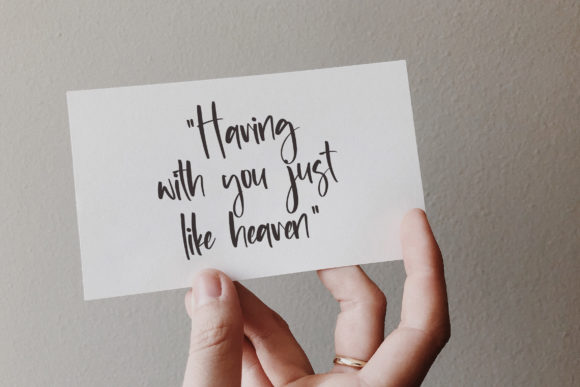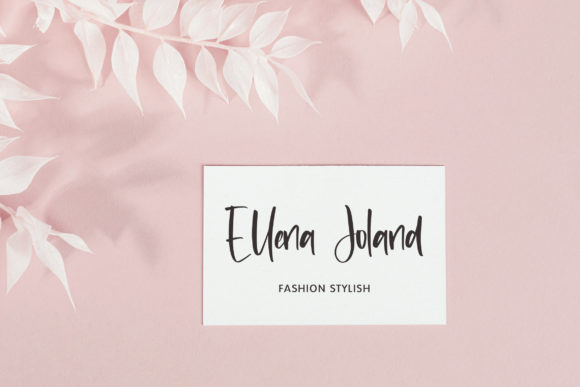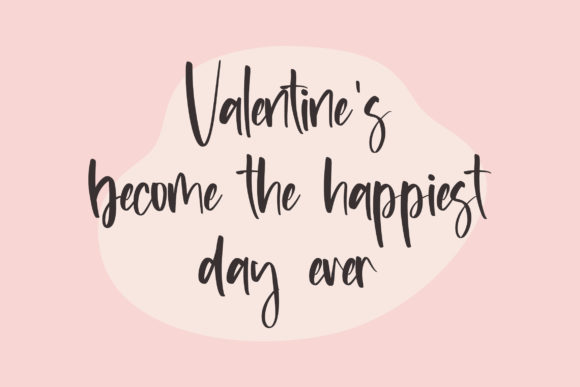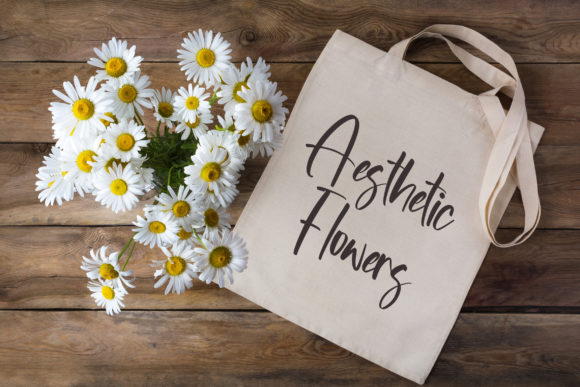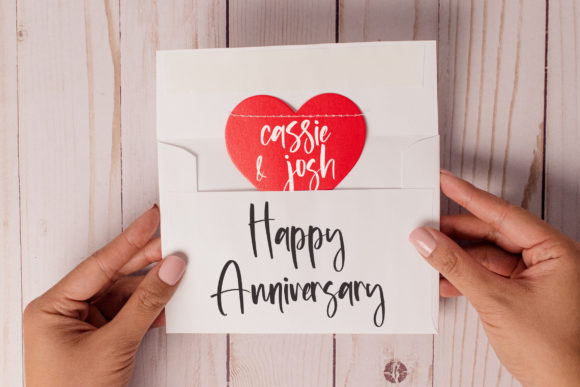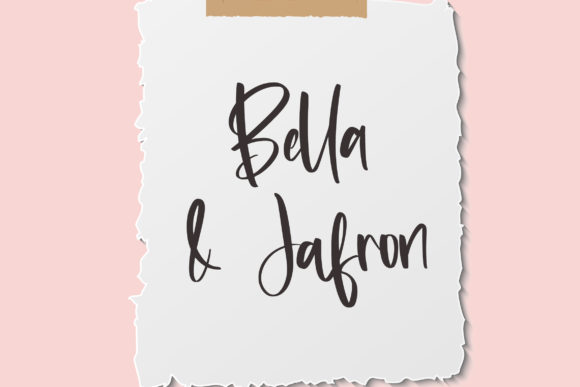
Unleashing Your Creativity with the Bedroom Diaries Font
Have you ever sat in front of your computer, staring at a blank screen, waiting for inspiration to strike? You’re not alone. As creatives, we’ve all been there. But what if I told you that there’s a secret to unlocking your design potential? For me, it starts with the right font. And when I stumbled upon the Bedroom Diaries Font, I knew I’d found my new go-to.
This gorgeous and relaxed script font is more than just a pretty face – it’s a game-changer for designers. With its unique and beautiful touch, the Bedroom Diaries Font brings your designs to life. Whether you’re creating eye-catching logos, branding, or quotes, this font is the perfect choice. Its versatility and elegance make it a valuable asset for any designer looking to elevate their work.
Bedroom Diaries Font Key Features
- Font Family: Bedroom Diaries is a unique, handwritten font designed to evoke a sense of intimacy and personal connection.
- Unique Characteristics: Features a mix of elegant, cursive script and bold, playful elements, making it perfect for creating emotional connections with the audience.
- Font Style: Available in regular and bold styles, allowing designers to add depth and contrast to their designs.
Bedroom Diaries Font Review
As a designer, I was excited to dive into the “Bedroom Diaries Font” and see what it had to offer. Here’s my honest take on this font:
- The font has a unique, cursive feel that’s perfect for creative projects, like journals, planners, or even romance novels.
- The letterforms are highly customizable, allowing you to tweak the size, spacing, and color to fit your specific design needs.
- The font includes a wide range of characters, including accents and punctuation marks, making it suitable for languages like French, Spanish, and German.
- The font may not be the best choice for body text, as it can be difficult to read at smaller font sizes.
- The font’s cursive nature can make it challenging to use in situations where clarity and legibility are crucial.
- The font’s uniqueness can also make it feel a bit overused, as it’s similar to other popular cursive fonts.
Overall, I’d give the “Bedroom Diaries Font” 3.5 out of 5 stars. It’s a great choice for creative projects that require a touch of whimsy, but it may not be the best fit for more formal or technical applications. With some careful use and customization, this font can add a lot of personality to your designs.
Experiment with different font sizes, colors, and styles to create a unique look.
Use the Bedroom Diaries font in combination with other fonts for a layered, eclectic feel.
Pay attention to the spacing and alignment of the text for a polished look.
The Bedroom Diaries font is perfect for:
Blog posts and articles
Social media graphics
Digital journals and planners
Printed materials like business cards and brochures
Alternatives to Bedroom Diaries Font
Pacifico is a beautiful, elegant font that is perfect for designing feminine and sophisticated projects. It is ideal for use in branding, packaging, and advertising materials where a touch of luxury is desired.
Compared to Bedroom Diaries Font, Pacifico has a more refined and polished look, making it suitable for a wider range of applications.
Great Vibes is a modern and playful font that is perfect for designing projects that require a fun and carefree vibe. It is ideal for use in social media graphics, posters, and other promotional materials.
Compared to Bedroom Diaries Font, Great Vibes has a more energetic and lively feel, making it suitable for projects that require a youthful and adventurous tone.